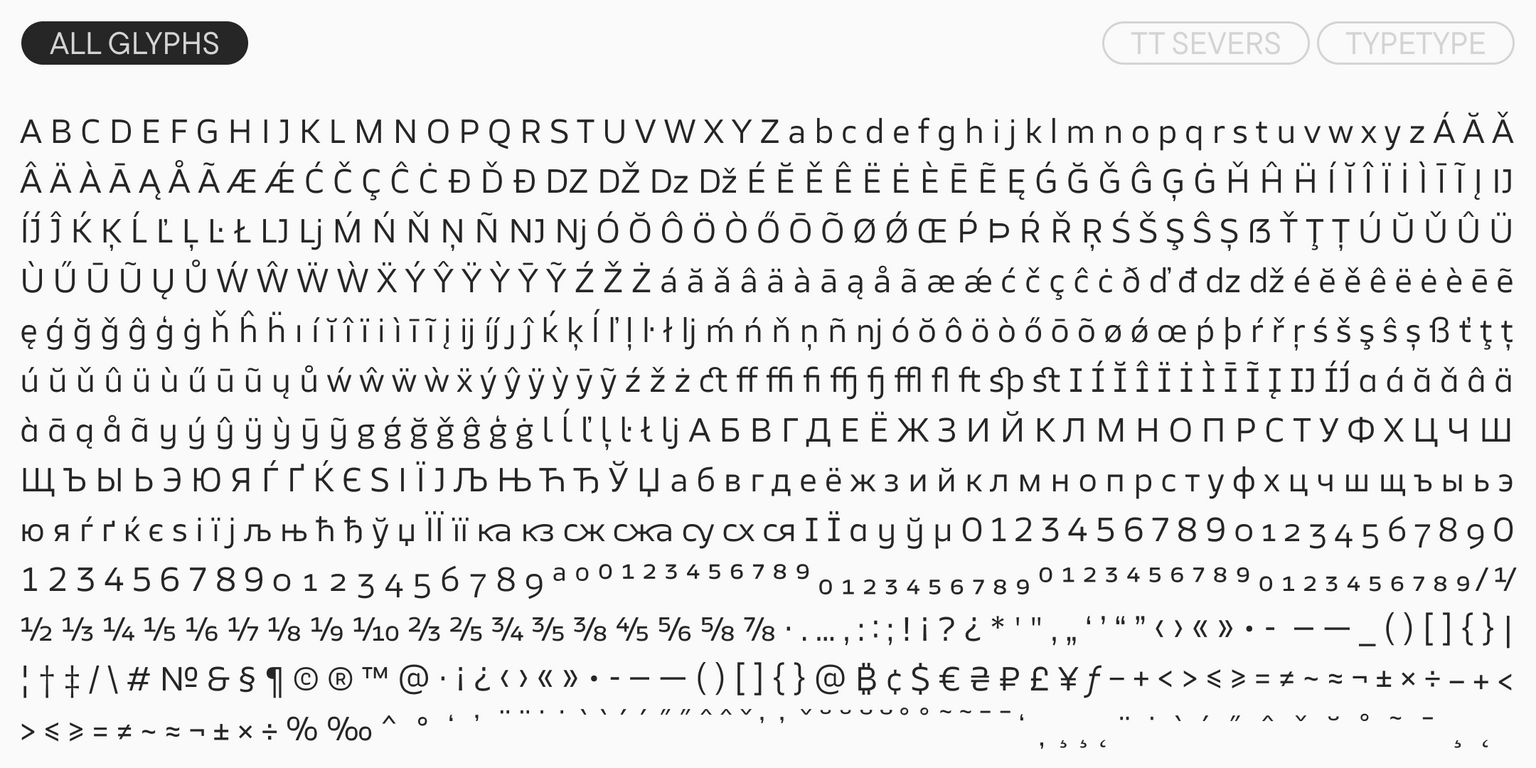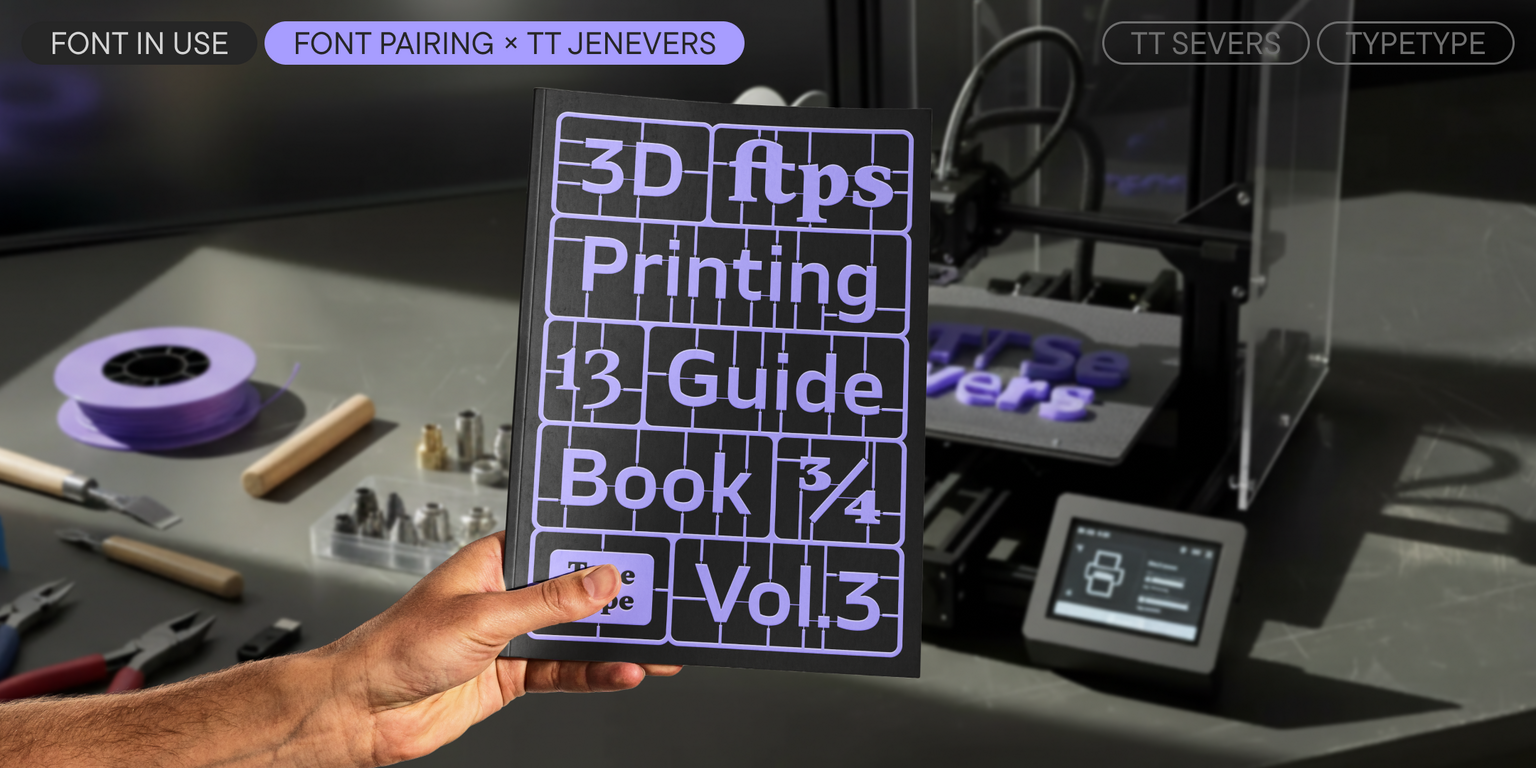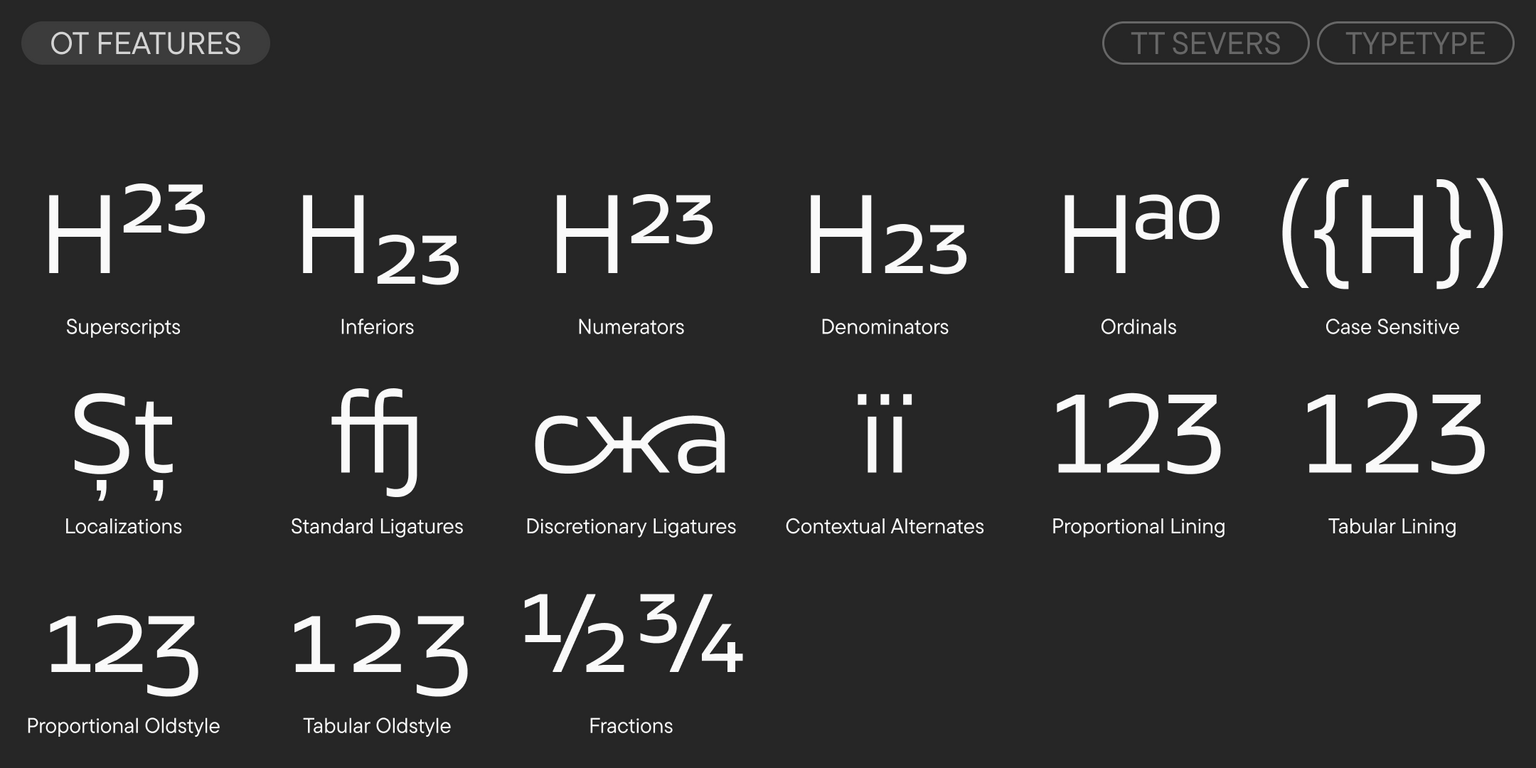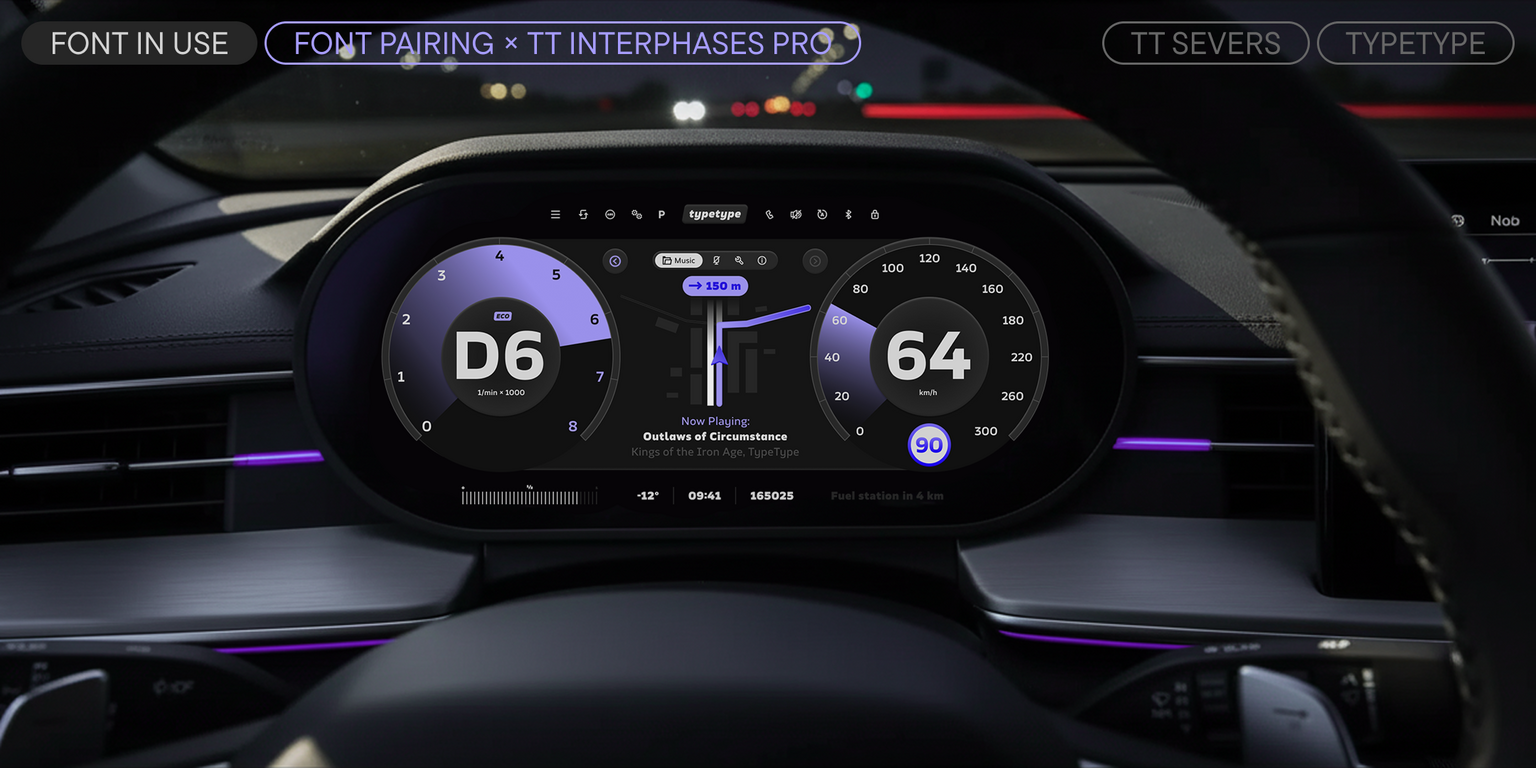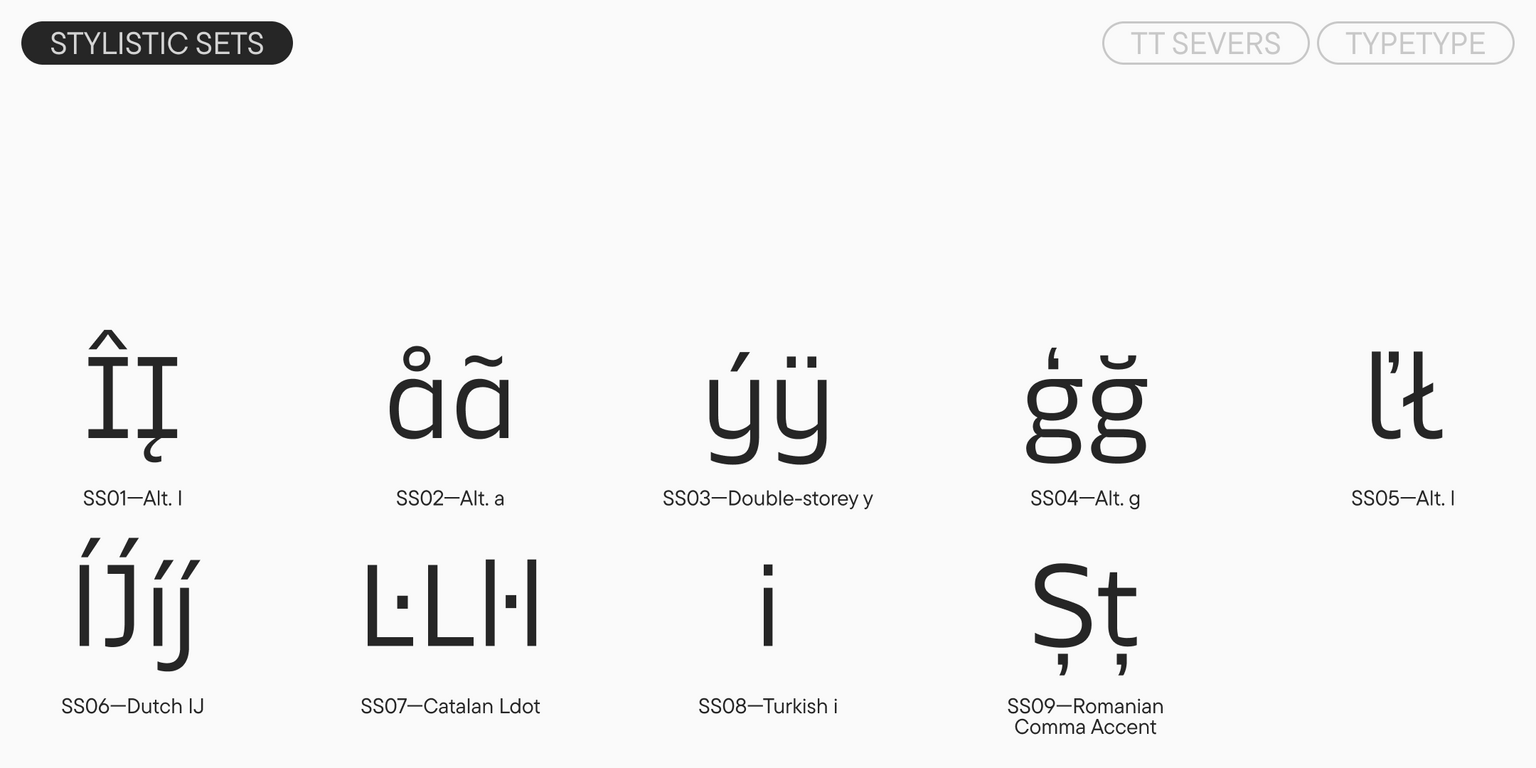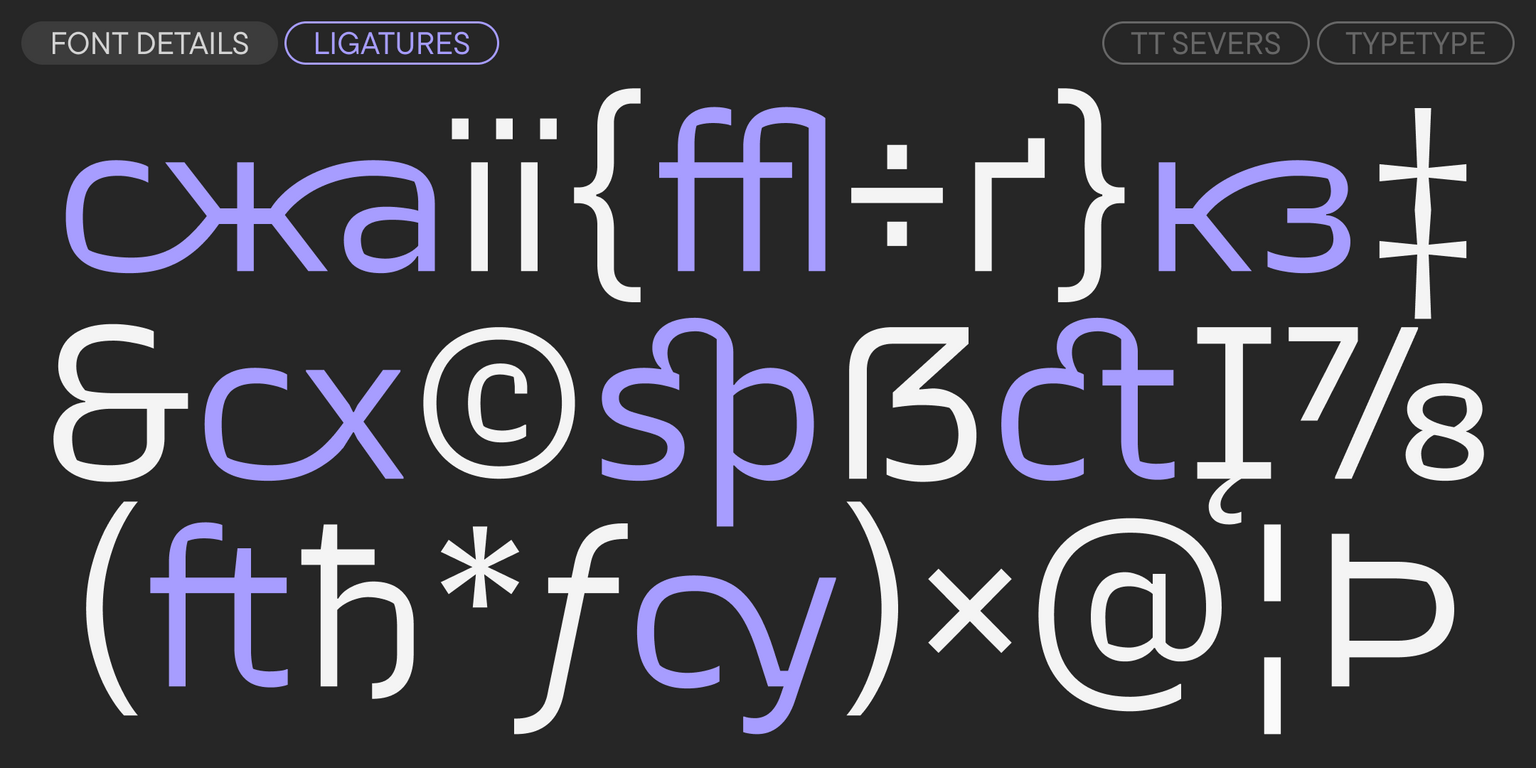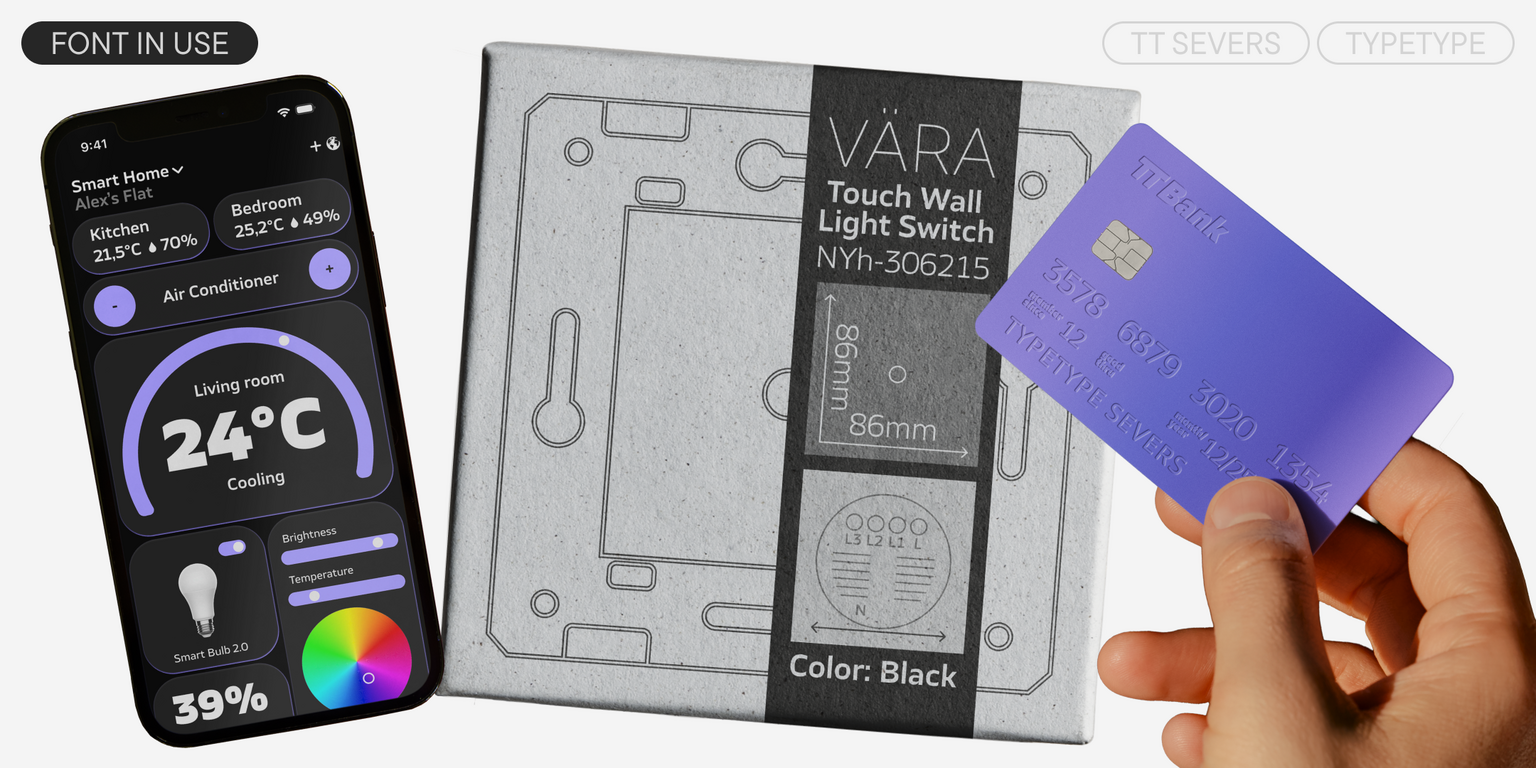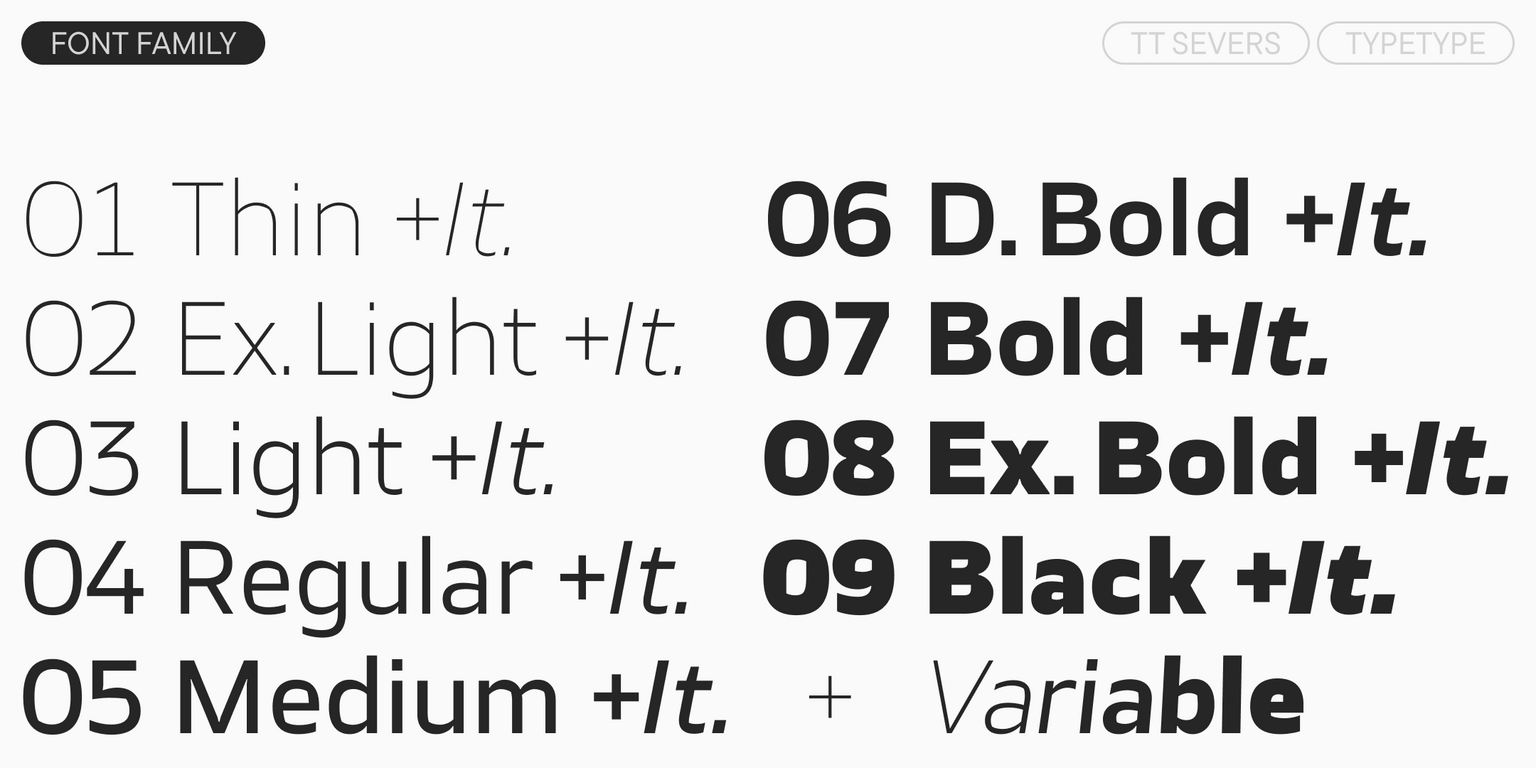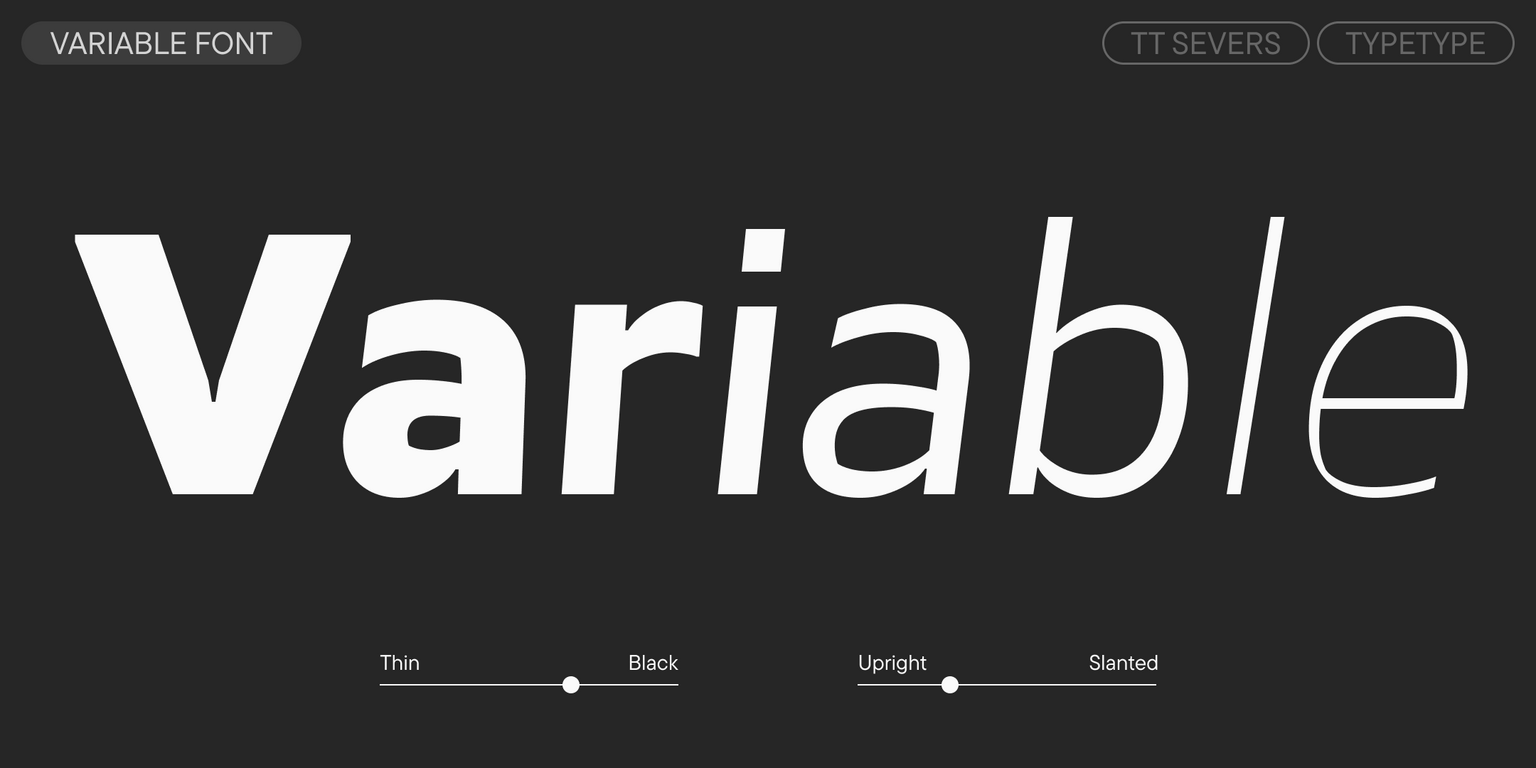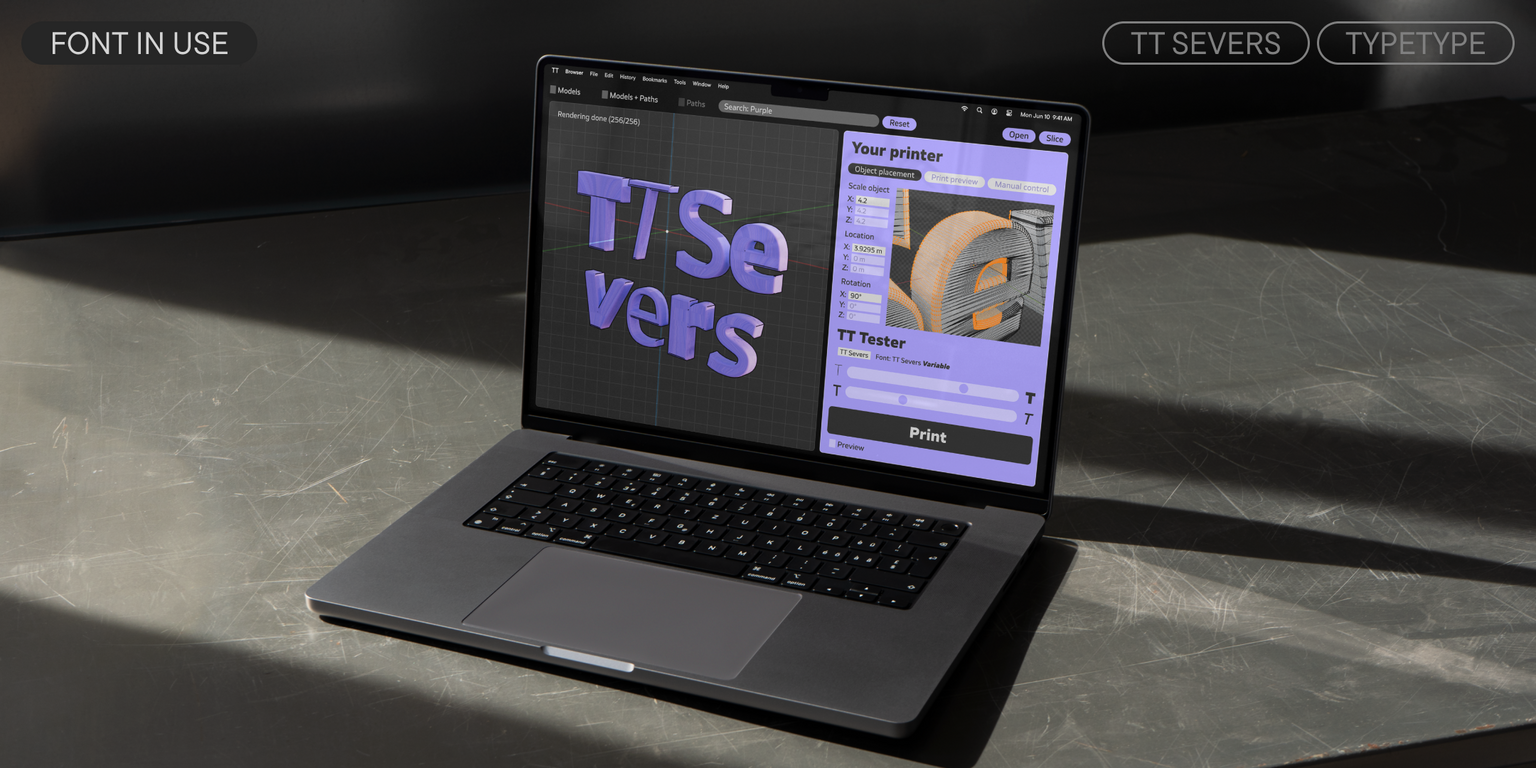
TT Severs
TT Severs is a geometric sans serif with emphasized elements of internal brackets inspired by traditional Arabic writing. It functions as a display font in a large body size and as a text font in a small body size.
A Grotesque with Prominent Counters
TT Severs is two characters in one typeface. At large sizes, TT Severs works as an expressive display font, showcasing a strong character and individuality. At small point sizes and in running text, the counters become less noticeable, and the typeface confidently serves as a text font. This is made possible by the moderate stroke contrast and the meticulously calibrated balance of black and white within the characters. The typeface has a decisive and firm character, making it an ideal choice for the IT sector, computer games, and the sports industry.
In 2025, we added a variable font and 8 new stylistic sets
About font family TT Severs
180+ Language support
Introducing the updated TT Severs version 2.000! We’ve added new features, glyphs, and languages, as well as a variable style.
OpenType features
ss04 | Alternative g
liga | Standard Ligatures
dlig | Discretionary Ligatures
onum | Oldstyle Figures
case | Case Sensitive Forms
frac | Fractions